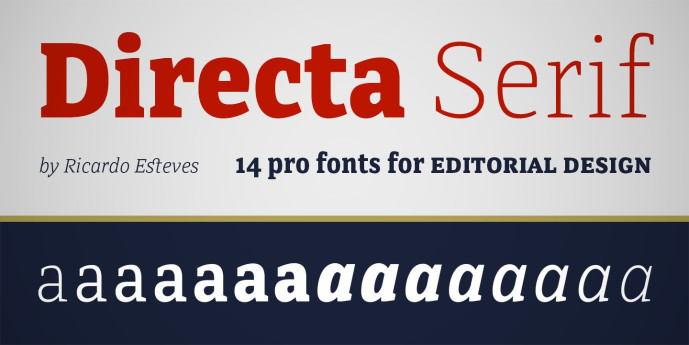
Directa Serif Font Family
Directa Serif Font Family is a text type family designed to save space with the maximum readability. Because of its general forms and proportions (a little bit condensed, big x-height, low contrast) it can be used in smaller sizes than usual for body text. It is highly recommended for newspapers, magazines, corporate communication and so on. Directa Serif Family is composed by 14 fonts (7 weights and its italics) with a large set of characters, including Western, Central European, Baltic, Scandinavian, Icelandic, Romanian and Turkish unicode ranges. Each font also includes several ligatures, a complete set of Small Caps, sets of lining, old style and tabular figures, as well as fractions, superior and inferior numbers. These features can be easily accessed using any OpenType-compatible software.